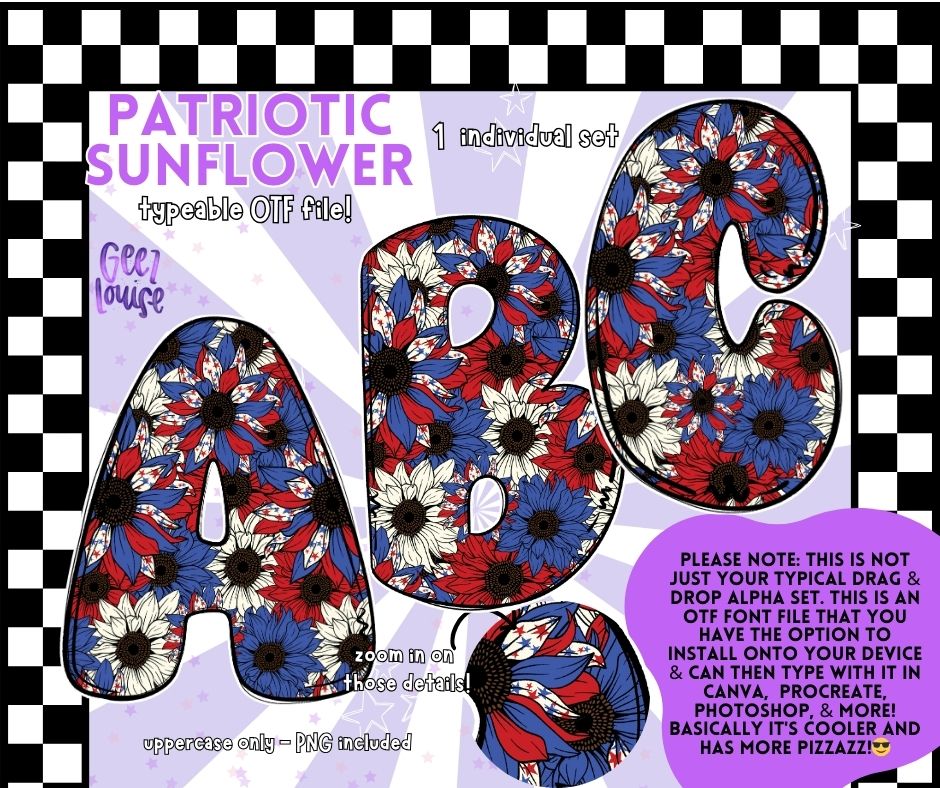
Patriotic Sunflower - Red White Blue Floral OTF Font + PNG Alpha Set
Celebrate summer in full bloom with our Patriotic Sunflower OTF Font! 🌻🇺🇸 Bursting with red, white, and blue floral prints — including star-studded petals — this bold summer alphabet is perfect for 4th of July designs, Memorial Day projects, patriotic apparel, and American pride crafts.
✔️ Uppercase letters only for high-impact designs